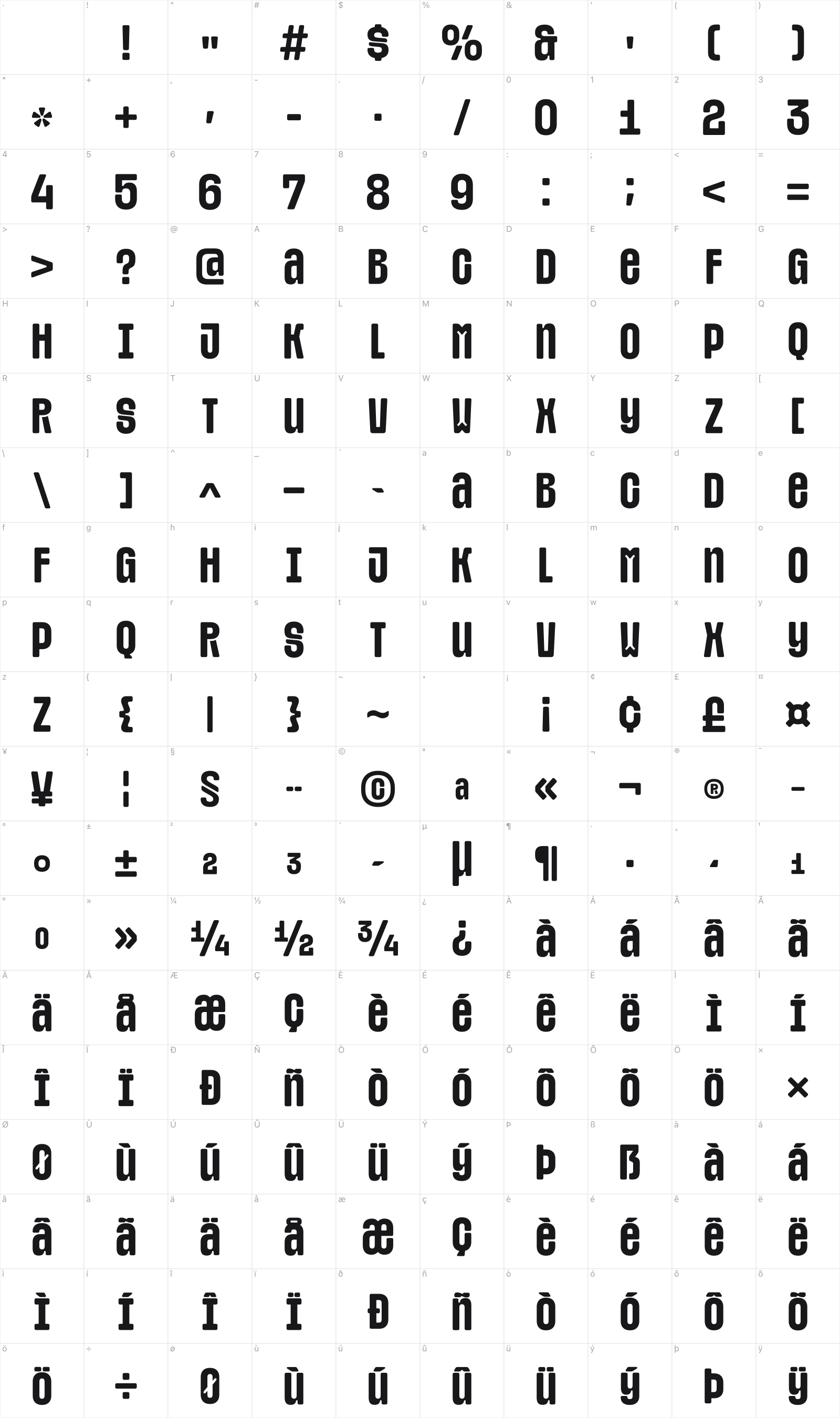
SFT Sushka
SFT Sushka is a heavy condensed display sans built on a boldly modular, constructivist skeleton with deep notches and cutouts at stroke junctions. The design channels Soviet-era poster typography and mid-century Eastern European graphic design without being a direct revival. Compact, muscular, and immediately eye-catching at large sizes.